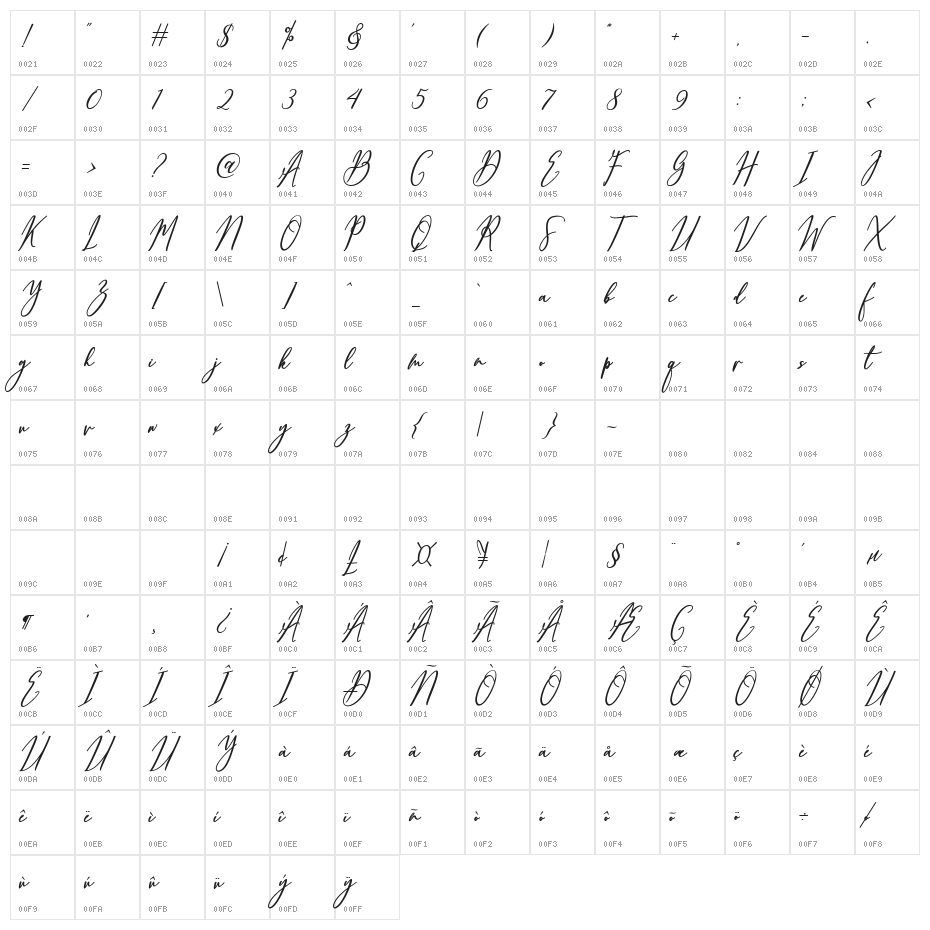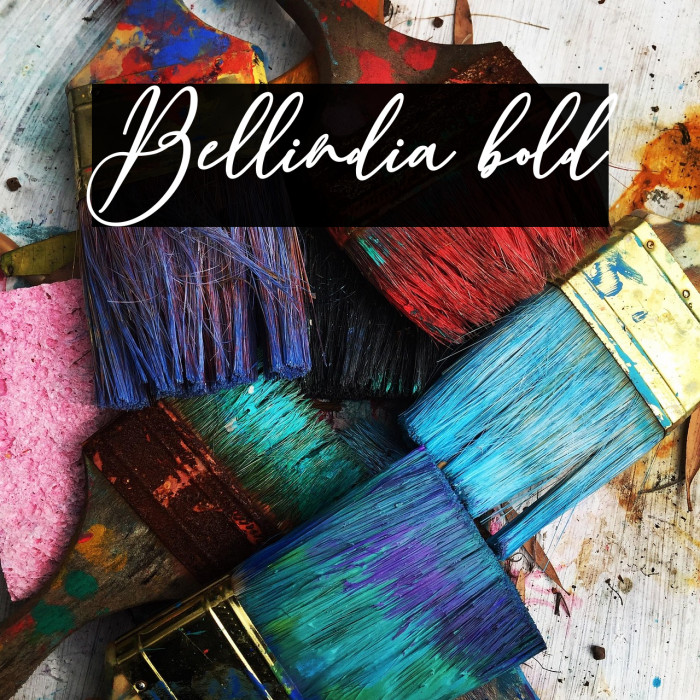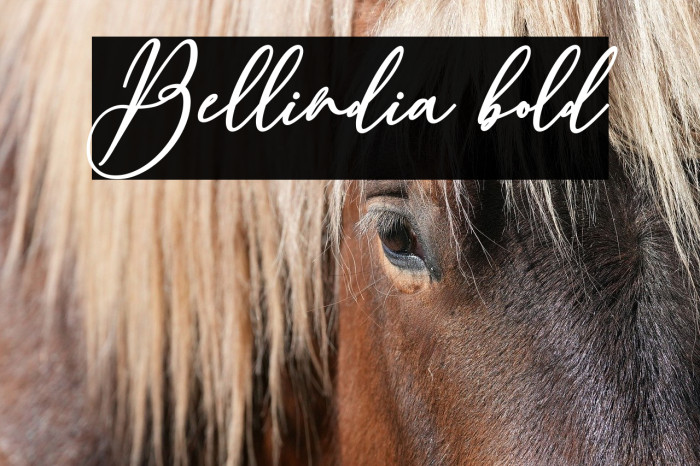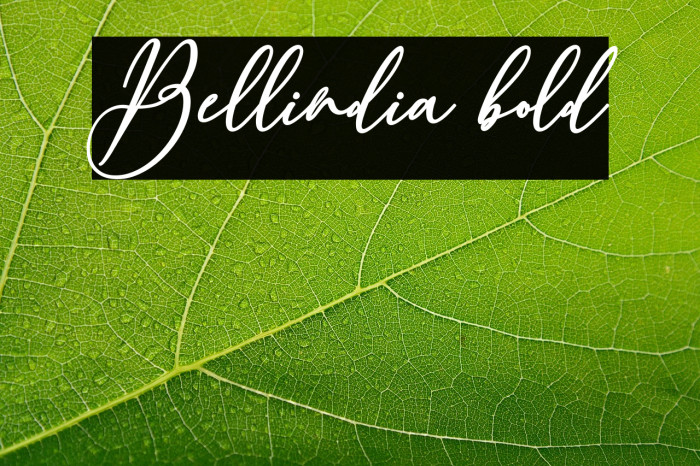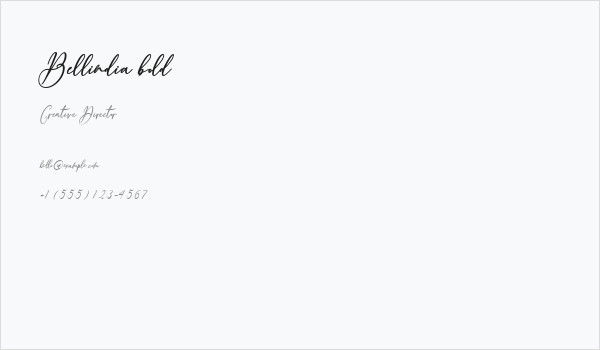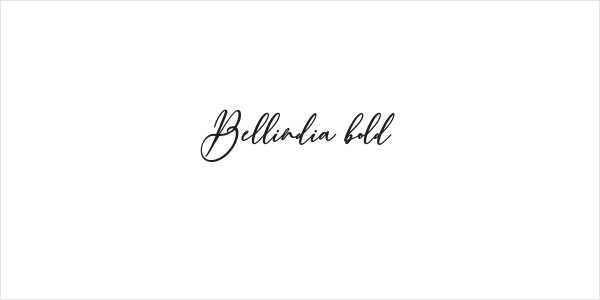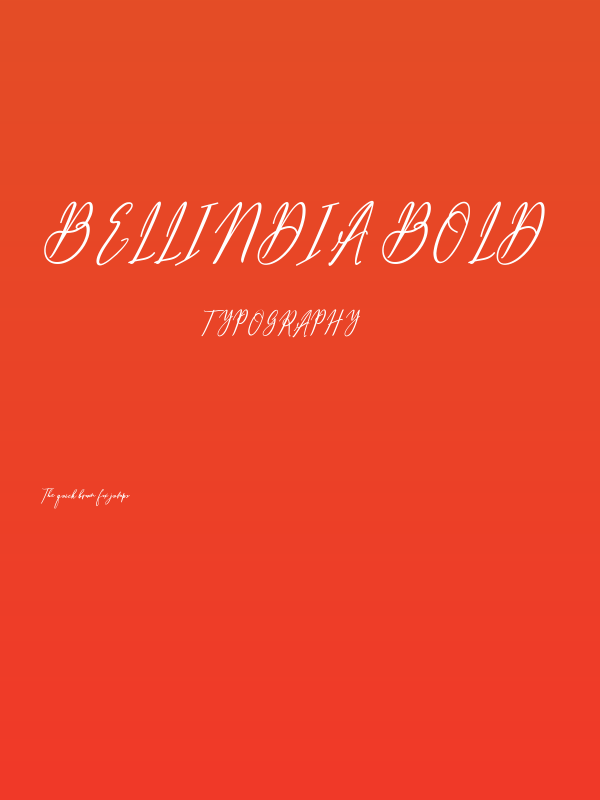
Bellindia bold Font
Bellindia bold Description
This font exhibits a dynamic and elegant script style, characterized by its flowing, cursive letterforms. The uppercase letters are tall and slender, with a slight slant that adds a sense of motion and grace. The lowercase letters are more compact, featuring smooth, rounded curves that enhance readability while maintaining a stylish appearance. The numerals are consistent with the overall script style, offering a harmonious blend of formality and flair. Special characters are thoughtfully designed to complement the alphabet, ensuring versatility in various design contexts. The font's bold weight adds emphasis and presence, making it suitable for impactful headlines and titles.
| Proposed Projects | Ideal for wedding invitations, branding, logo design, and elegant packaging. |